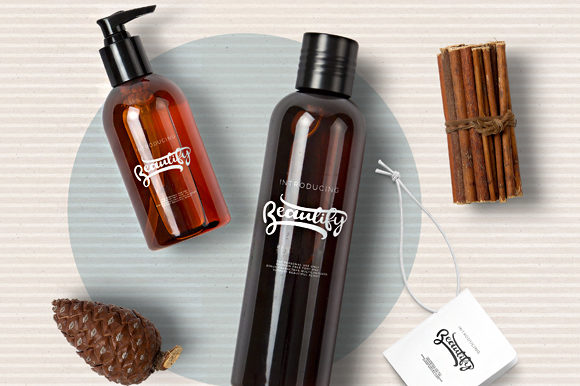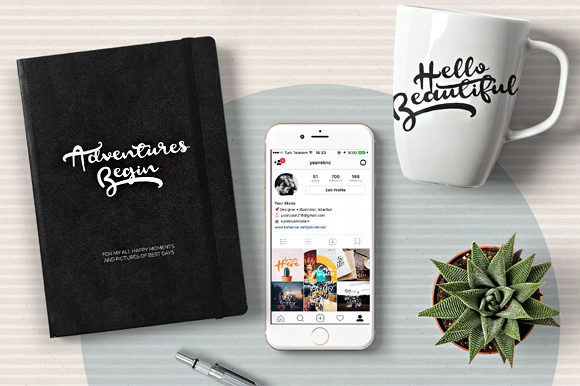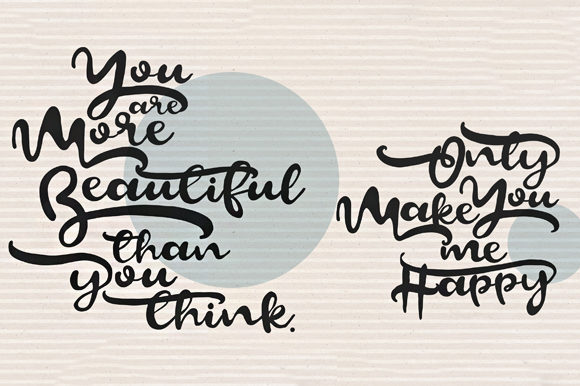
Beautify Script Font: Elevate Your Designs with Elegance
Are you a designer or crafter looking to add a touch of sophistication and elegance to your projects? Look no further than the Beautify Script Font. This gorgeous flowing script font is designed to help you create beautiful typographic pieces with a handmade look that will leave a lasting impression.
What is Beautify Script Font?
Beautify is a stunning script font that features a full character set, including some international characters and alternates. This extensive character set allows you to create a wide range of typographic pieces, from elegant invitations and quotes to beautiful headings and titles. With Beautify, you can add a personal touch to your designs and make them stand out from the crowd.
Key Features of Beautify Script Font
- Full Character Set: Beautify features a comprehensive character set that includes all the letters, numbers, and punctuation marks you need to create beautiful typographic pieces.
- International Characters: The font includes a range of international characters, making it perfect for designers and crafters who work with clients from around the world.
- Alternates: Beautify also features a range of alternates, allowing you to create unique and varied typographic pieces that showcase your creativity.
- Handmade Look: The font has a beautiful, handmade look that adds a personal touch to your designs.
Uses for Beautify Script Font
Beautify Script Font is perfect for a wide range of design projects, including:
- Invitations: Create beautiful wedding invitations, birthday invitations, and other special occasion invitations with a personal touch.
- Quotes and Posters: Use Beautify to create stunning quotes and posters that showcase your favorite sayings and phrases.
- Headings and Titles: Add a touch of elegance to your headings and titles with Beautify’s beautiful script font.
- Branding and Packaging: Use Beautify to create unique and eye-catching branding and packaging designs that stand out from the crowd.
Tips for Using Beautify Script Font
Here are a few tips for getting the most out of Beautify Script Font:
- Experiment with Alternates: Don’t be afraid to experiment with the alternates in Beautify to create unique and varied typographic pieces.
- Pair with Other Fonts: Beautify looks great when paired with other fonts. Try pairing it with a clean sans-serif font for a striking contrast.
- Use for Headings and Titles: Beautify is perfect for headings and titles, but it can also be used for body text. Experiment with different sizes and styles to find the perfect look for your project.
Beautify Script Font is a stunning script font that is perfect for designers and crafters looking to add a touch of elegance and sophistication to their projects. With its full character set, international characters, and alternates, Beautify is the perfect choice for creating beautiful typographic pieces with a handmade look. Whether you’re creating invitations, quotes, headings, or titles, Beautify is sure to elevate your designs and leave a lasting impression.